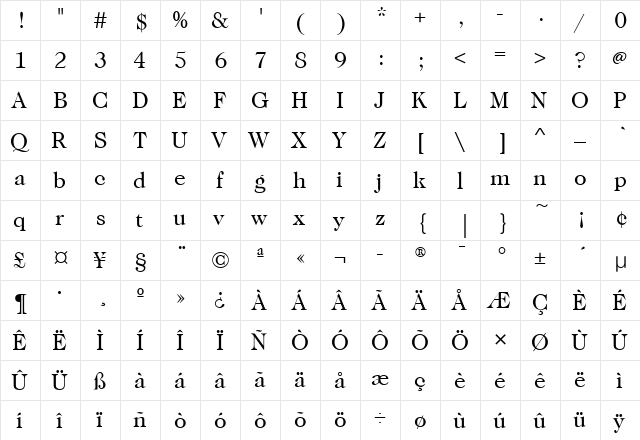
CaslonTwoTweFourITC Book
Design Context for CaslonTwoTweFourITC Typeface
CaslonTwoTweFourITC offers clean, dependable letterforms without strong stylistic allegiance, making it a practical choice for designers who need flexibility.